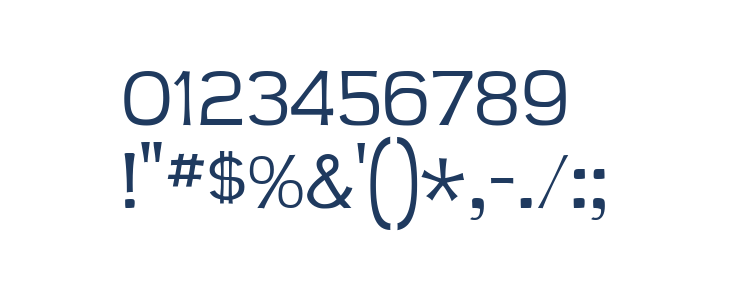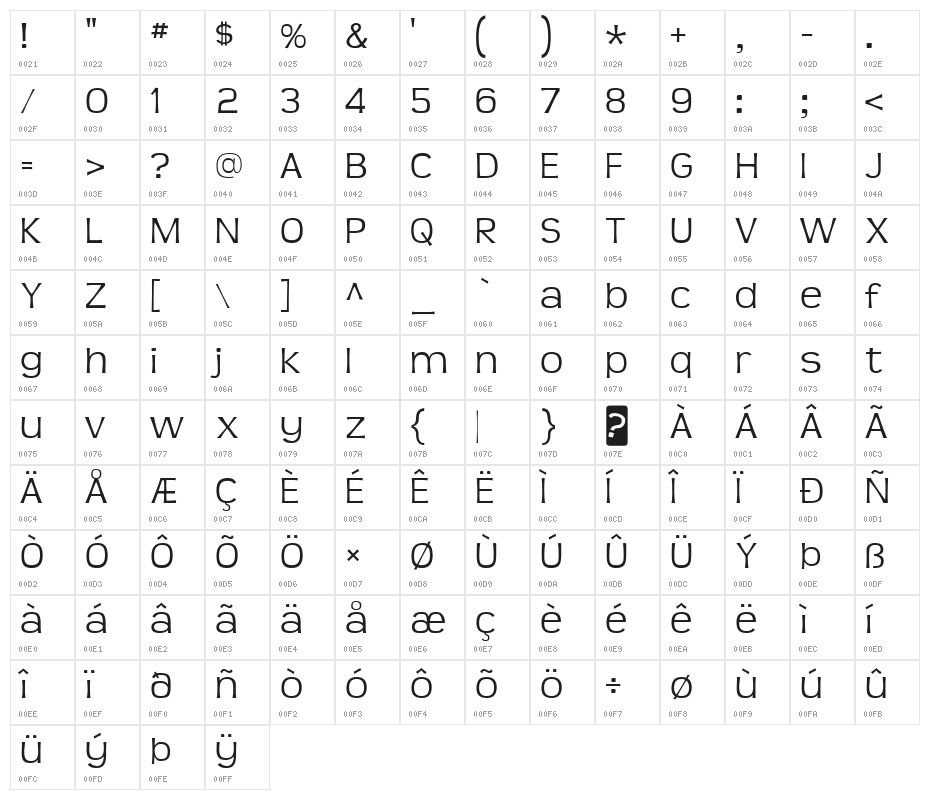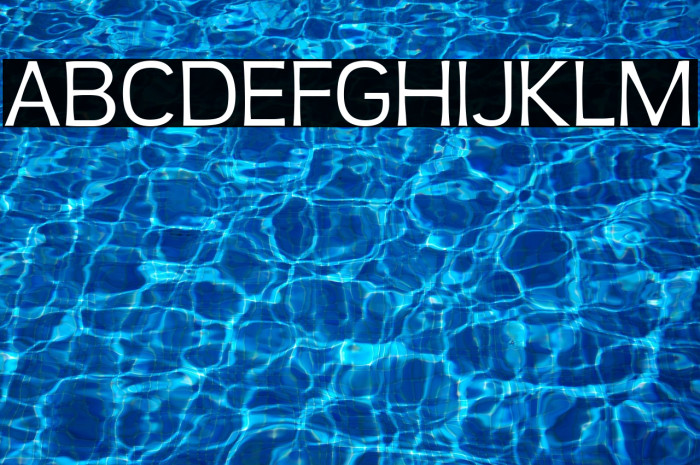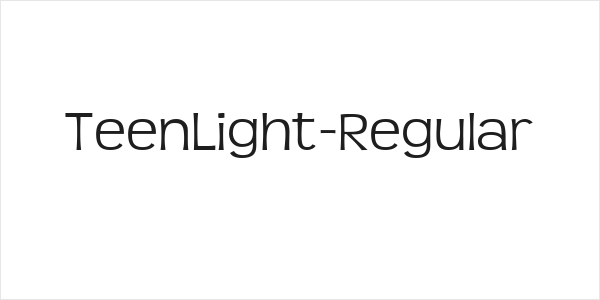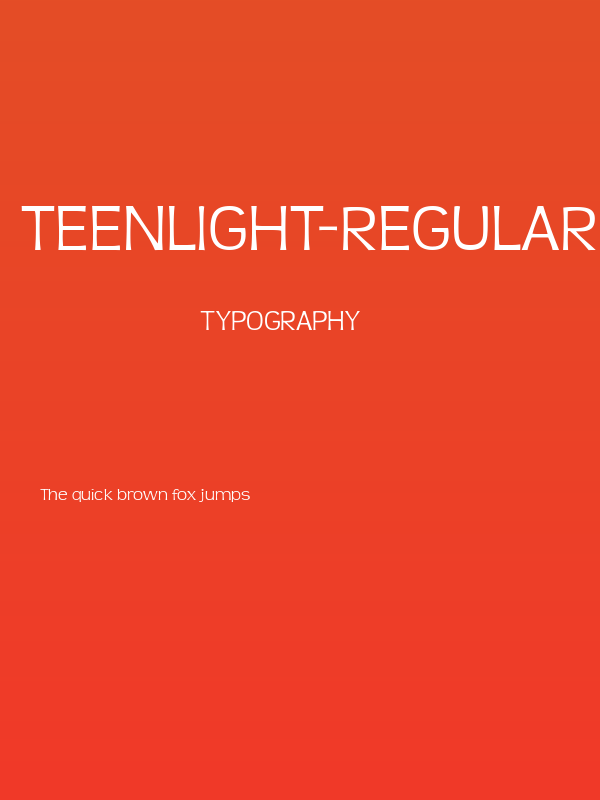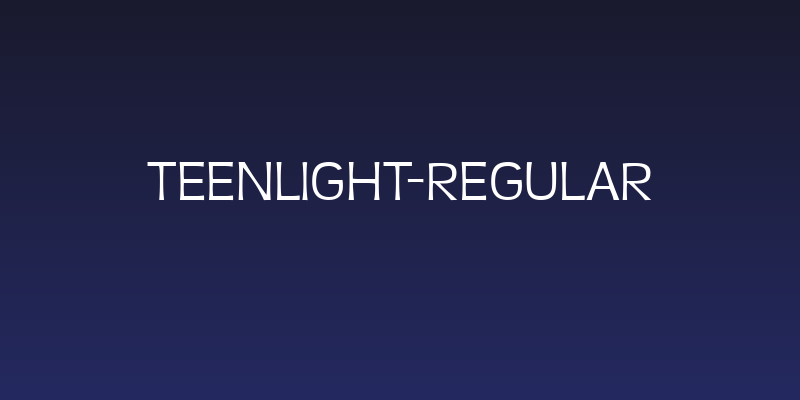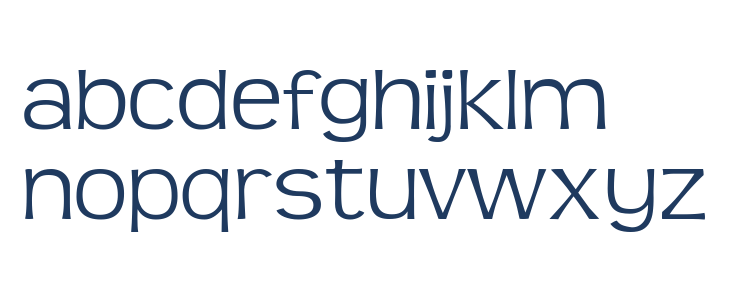
TeenLight-Regular Font
TeenLight-Regular Description
This font features a clean and modern sans-serif design with a light weight, making it highly readable and versatile. The characters are evenly spaced with a slightly condensed width, providing a sleek and streamlined appearance. The strokes are uniform, offering low contrast, which enhances its legibility across various sizes. The overall style is contemporary, suitable for digital and print media. The font includes a full set of uppercase and lowercase letters, numerals, and a variety of special characters, making it comprehensive for diverse applications.
| Proposed Projects | Ideal for web design, corporate branding, user interfaces, and editorial layouts. |